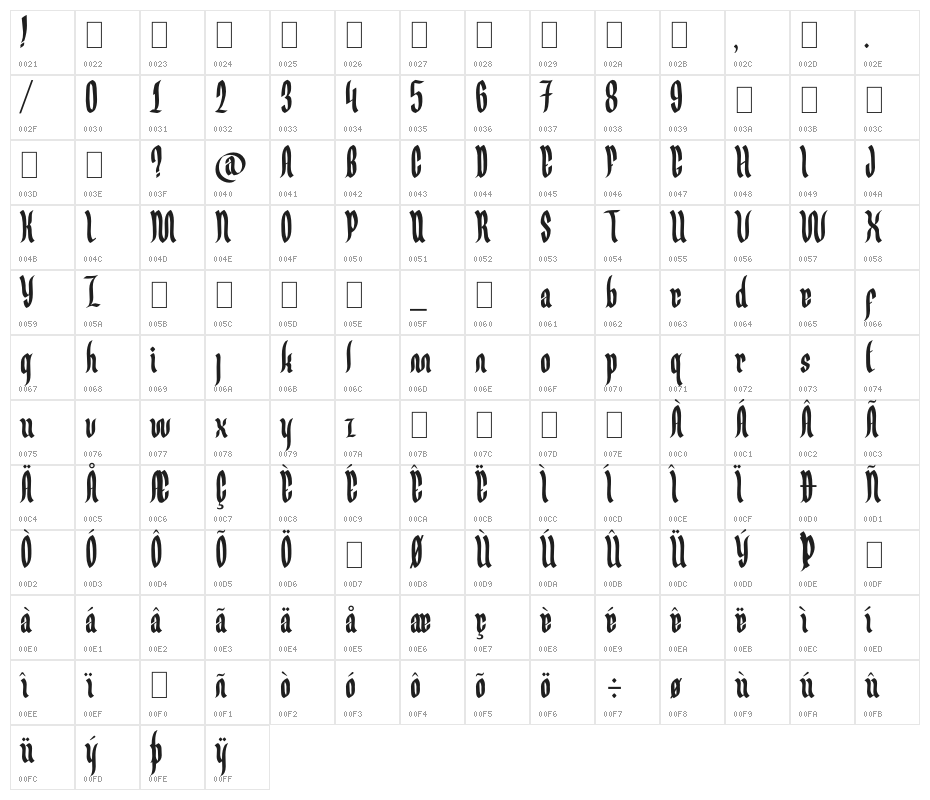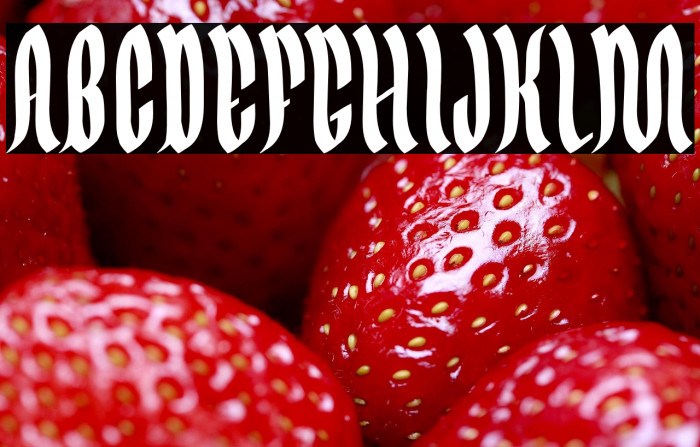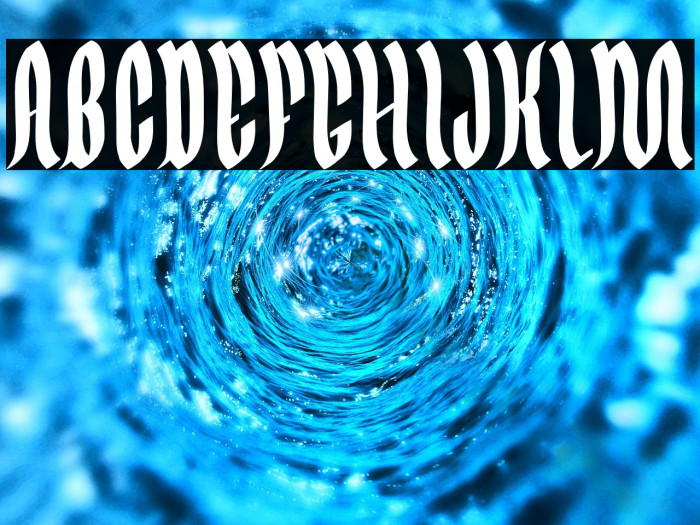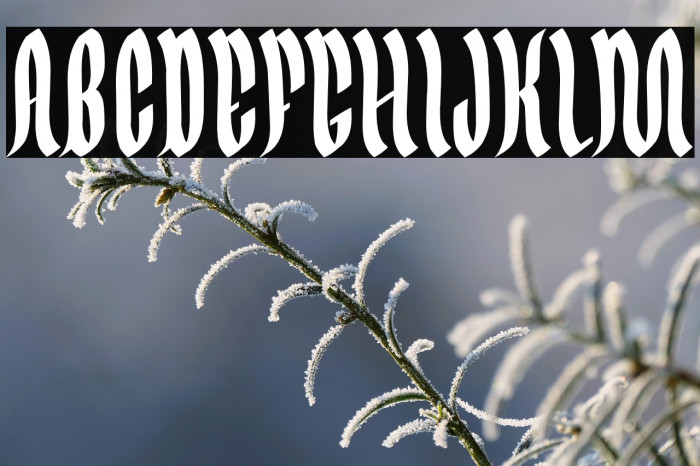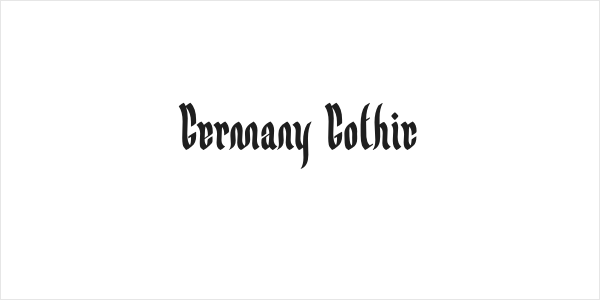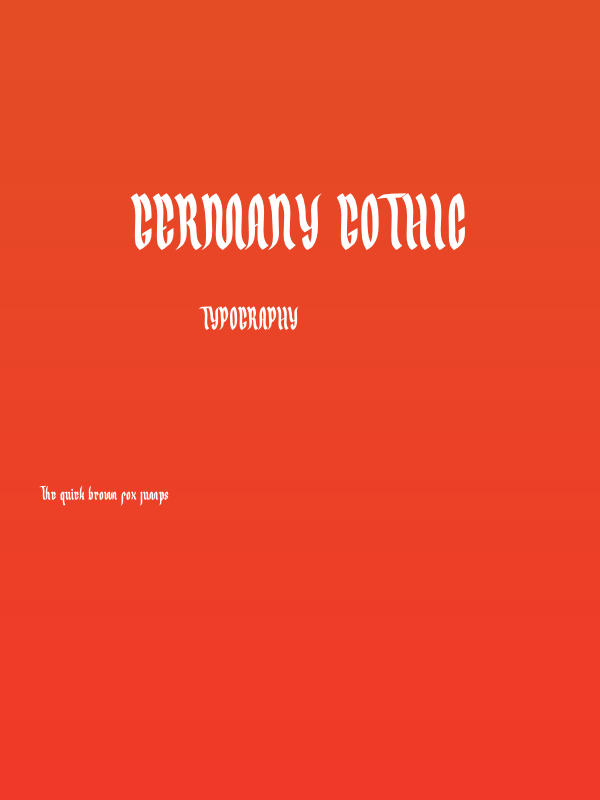
Germany Gothic Font
Germany Gothic Description
This font exudes a traditional and historical essence, reminiscent of medieval script styles. The characters are intricately designed with sharp, angular lines and a distinct Gothic influence. The uppercase letters are tall and imposing, while the lowercase letters maintain a consistent flow with unique flourishes. The numbers are bold and maintain the same Gothic style, ensuring uniformity across the font. Special characters are included, each crafted with the same attention to detail, making this font suitable for projects that require a touch of antiquity and elegance.
| Overall Style | Vintage |
| Proposed Projects | Ideal for historical documents, themed event invitations, book covers, and branding that requires a vintage or medieval touch. |